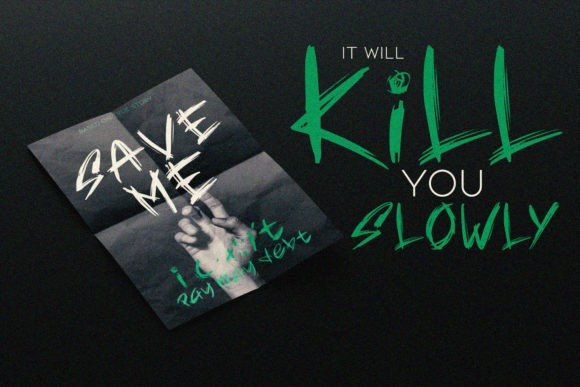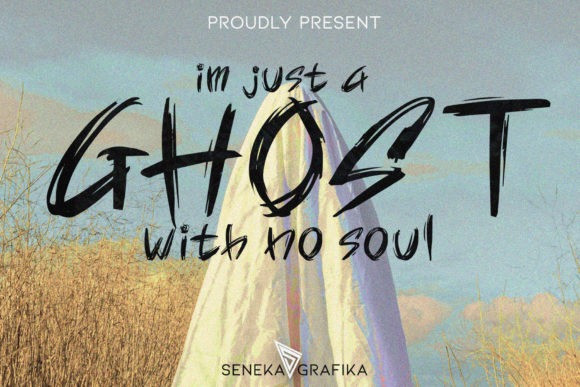
Ghost Font
Ghost Brush Font is a unique display font inspired by the apparition with the same name. Its spooky appearance and strong characters make it suitable for any Halloween and horror project. Add it to your posters, postcards, logos, and anything your mind comes up with, and notice how they capture everyone’s attention!